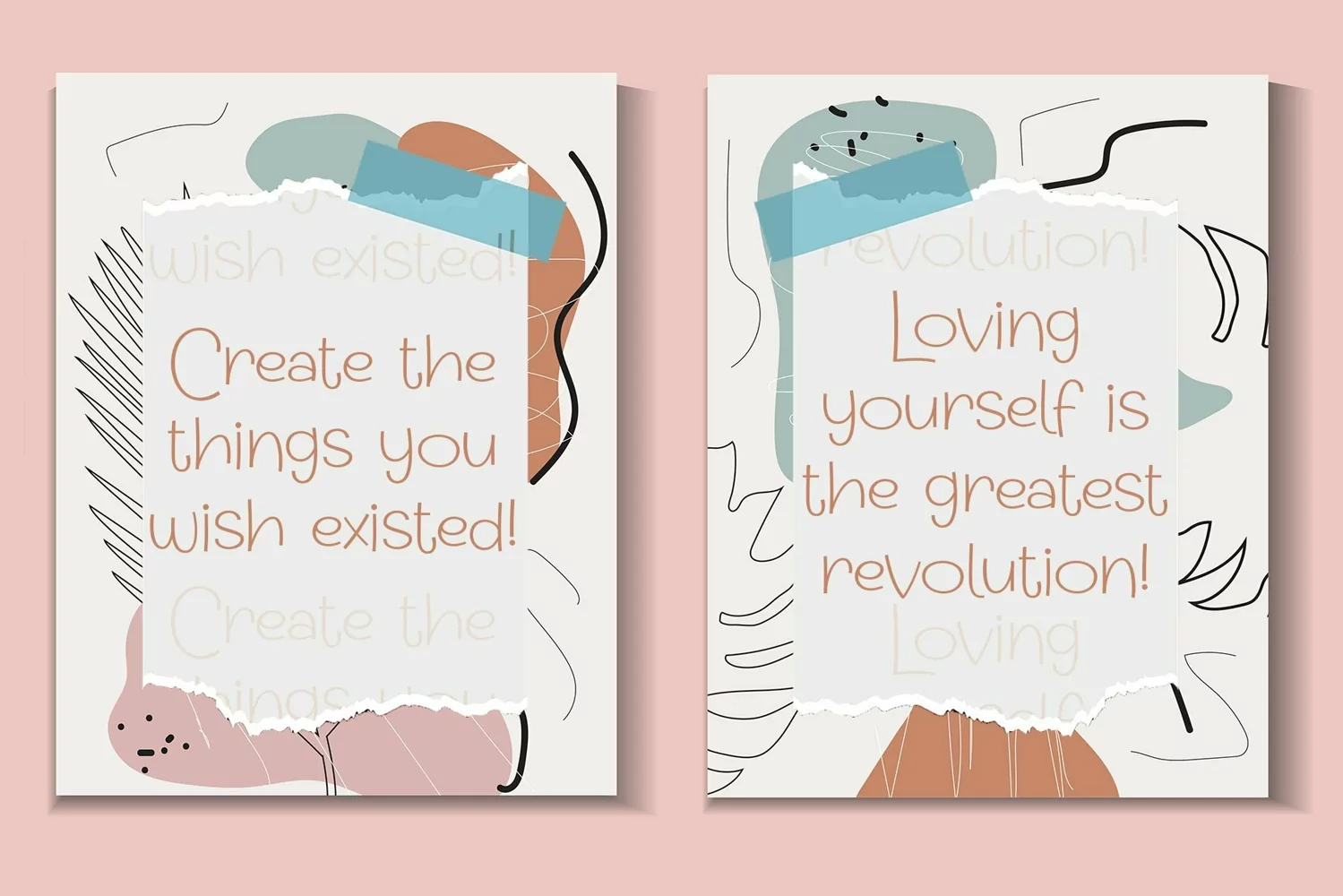
Nemois is a display typeface. Perfect for display, poster, quotes, merchandise, header, headline, magazine cover, logo, logotype, business card, branding, wedding needs, print, t-shirt, pin, mug, crafting needs and many more.